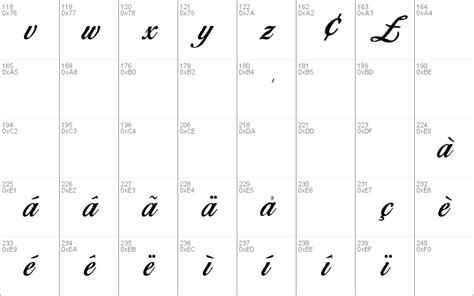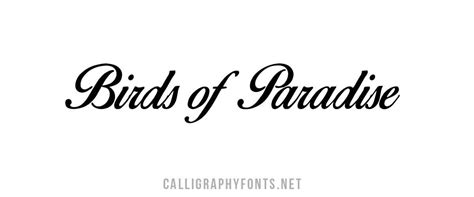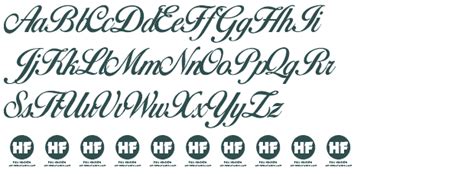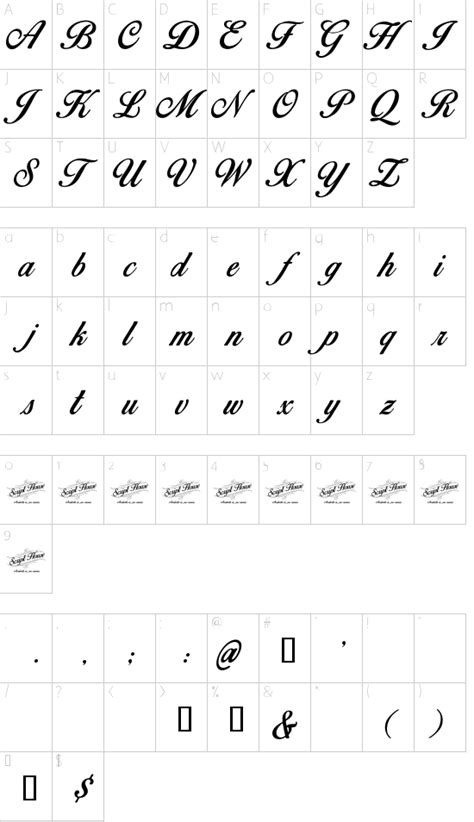
Birds Of Paradise Font Script : Download Free Font Birds of Paradise - Birds of paradise by copyright (c) 2014 by script house ¨.. Birds of paradise font by script house free download. Dowonload this fonts for graphic design , web fonts. Birds of paradise is a trademark of herofonts. Birds of paradise ¸ personal use only.ttf. Birds of paradise fonts free download.
Birds of paradise by script house. ✔️ customize your own preview on ffonts.net to make sure it`s the right one for your designs. This font is free for personal use only! Free download birds of paradise font; Birds of paradise was designed by guilhem greco.
Because it has the ability easily worked for display, signage, corporate as well as for. Birds of paradise font author: This font is free for personal use only! Free download birds of paradise font; The birds of paradise font contains 151 beautifully designed characters. Free for personal use / buy for commercial use (more info). Birds of paradise is a trademark of herofonts. I must say you would defiantly have seen that script font in many places and many times for sure. For windows 7 / vista users: You must link to gettyfonts.net after download birds of paradise font. You can use this font for personal purpose. Paradise script four is a trademark of maximiliano sproviero. Birds of paradise download free in category script, calligraphy.
Birds of paradise is the perfect font for all your fun designs.
Birds of paradise is a font by script house , designed by guilhem greco in 2014. For windows 7 / vista users: The birds of paradise font contains 151 beautifully designed characters. Birds of paradise font by script house free download. Birds of paradise font details (.ttf download). Birds of paradize font is designed and developed by hero fonts foundry and it has very elegant appearance, catchy look and feel and perfectly suitable for your design related projects. Free download birds of paradise font; Paradise script four is a trademark of maximiliano sproviero. Birds of paradise is a trademark of script house ¨. Because it has the ability easily worked for display, signage, corporate as well as for. Check font license and view font details, character map, custom preview, comments, reviews, file contents and more. Birds of paradise by copyright (c) 2014 by script house ¨. How to install birds of paradise in your computer?
Copyright (c) 2014 by guilhem greco. Dowonload this fonts for graphic design , web fonts. Click any character to copy it to your clipboard. Free for personal use / buy for commercial use (more info). Birds of paradise is a high quality calligraphy font that is designed by herofonts and is available for free download and personal use. Birds of paradise.ttf(.otf) for windows and mac. Birds of paradise download free in category script, calligraphy. Birds of paradise font author: Full font name trademark notice: Birds of paradise is a font by script house , designed by guilhem greco in 2014. Script house is a foundry made by professional graphic designers specialized in script fonts ! Home › script › calligraphy › birds of paradise font free download. Check font license and view font details, character map, custom preview, comments, reviews, file contents and more.